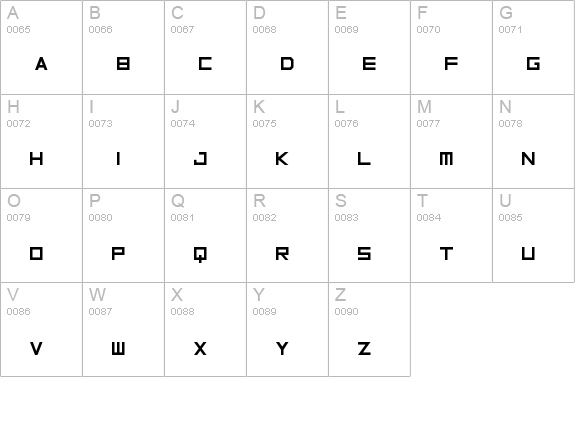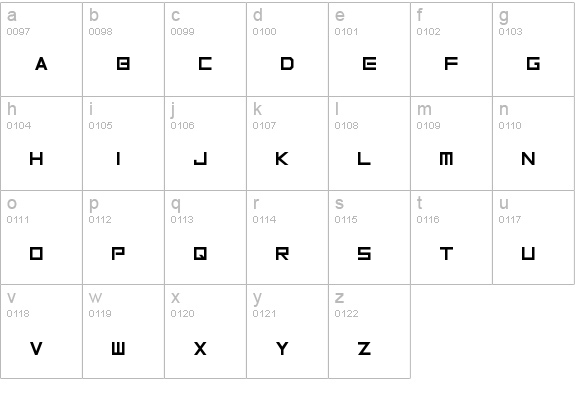
Inversionz Unboxed font is a stunning display typeface that exudes modernity and sophistication. With its clean lines and sharp edges, this font is perfect for adding a contemporary touch to any design project. The distinctive feature of Inversionz Unboxed font lies in its unique letterforms, which are cleverly inverted to create an eye-catching visual effect. Each character is meticulously crafted, resulting in a font that is both elegant and impactful. What sets Inversionz Unboxed font apart is its versatility. Whether you're designing a logo, a poster, or a website, this font will effortlessly elevate your project to new heights. It commands attention and leaves a lasting impression on the viewer. The best part is that Inversionz Unboxed font is completely free to download at FontsMarket.com. This means that you can easily access and use this remarkable typeface without breaking the bank. Its availability for free ensures that designers of all backgrounds and budgets can enjoy its beauty and make their projects shine. To sum it up, Inversionz Unboxed font is a must-have for anyone seeking a modern and impactful typeface. Its inverted letterforms and clean design make it a standout choice for a wide range of design projects. And with its availability as a free download at FontsMarket.com, there's no reason not to add this remarkable font to your collection today.